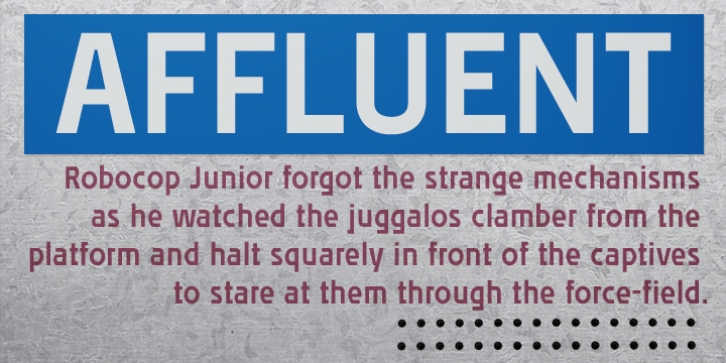
Tailor-made for both the big and small screen, Affluent is perfectly readable at all sizes and on any color background. Affluent isn’t your stereotypical on-screen font; it can handle large or small text when you want readability in a contemporary, form-follows-function utilitarian style. You’ll find Affluent perfectly cast in your next DVD menu, TV text, movie title, video terminal and kiosk, web design, public video display and on any video-game console.